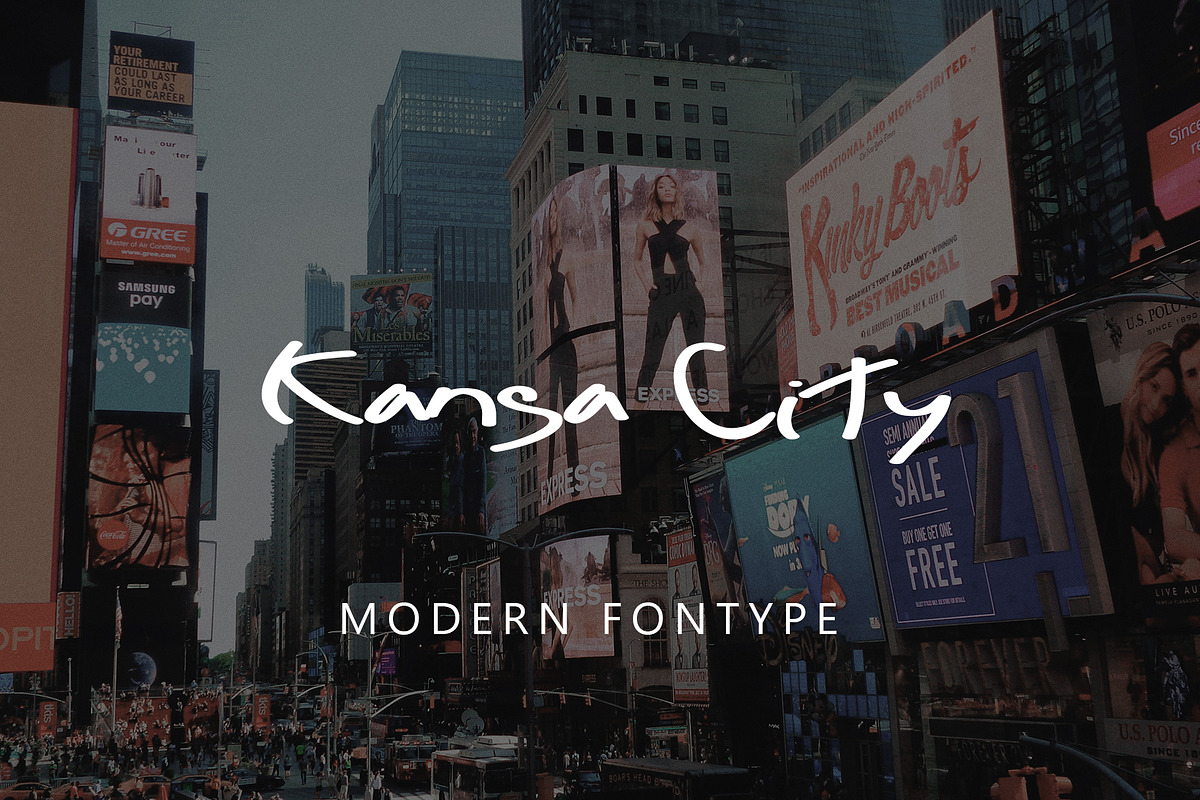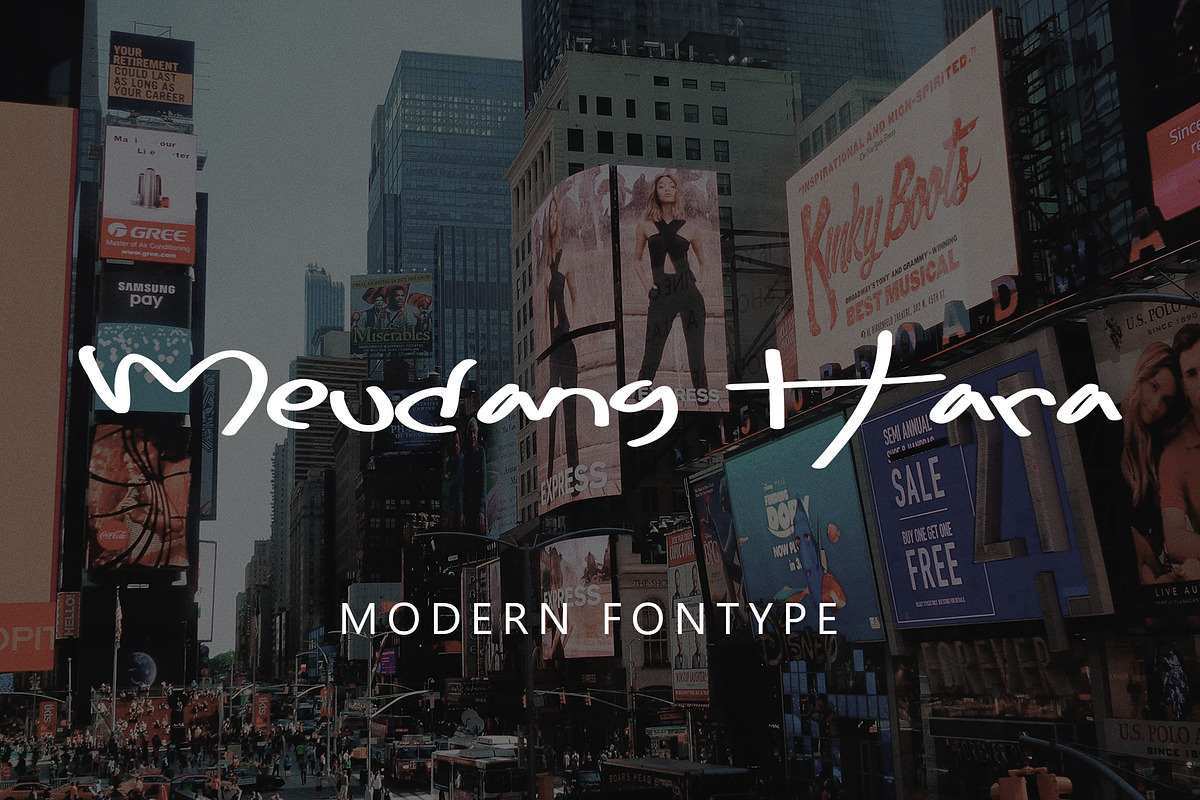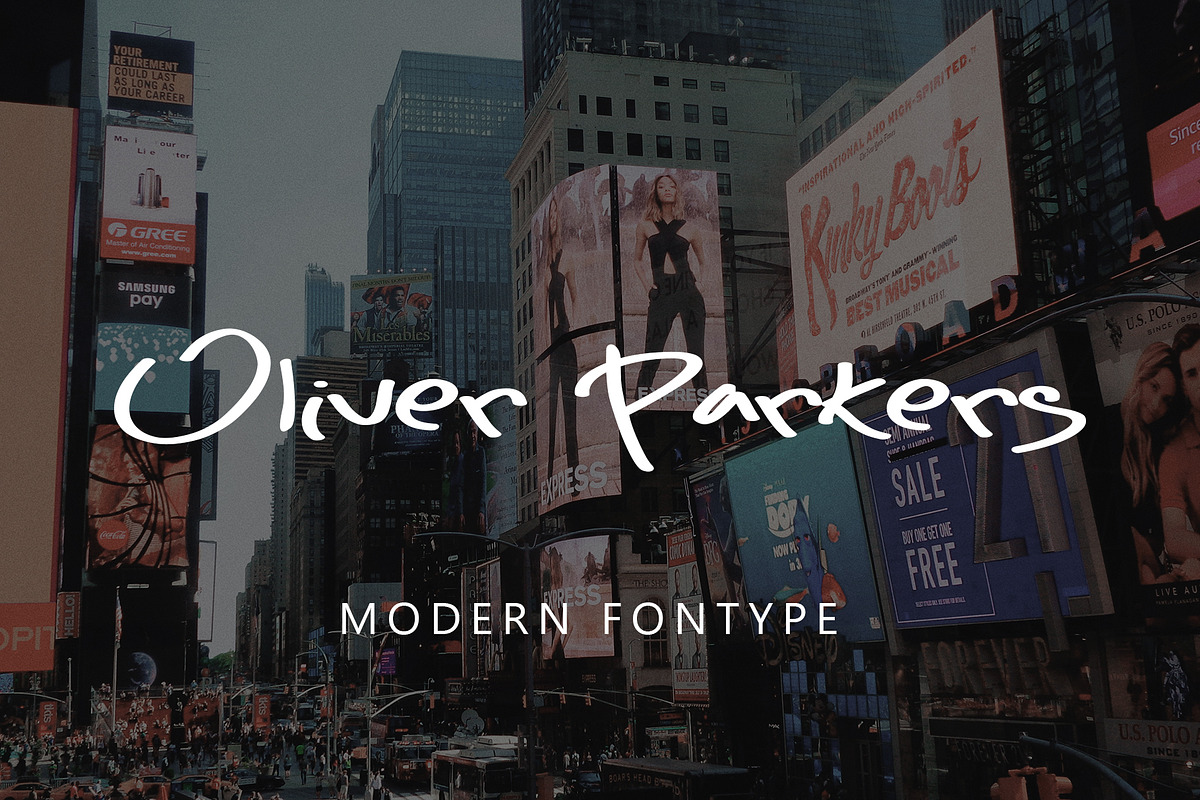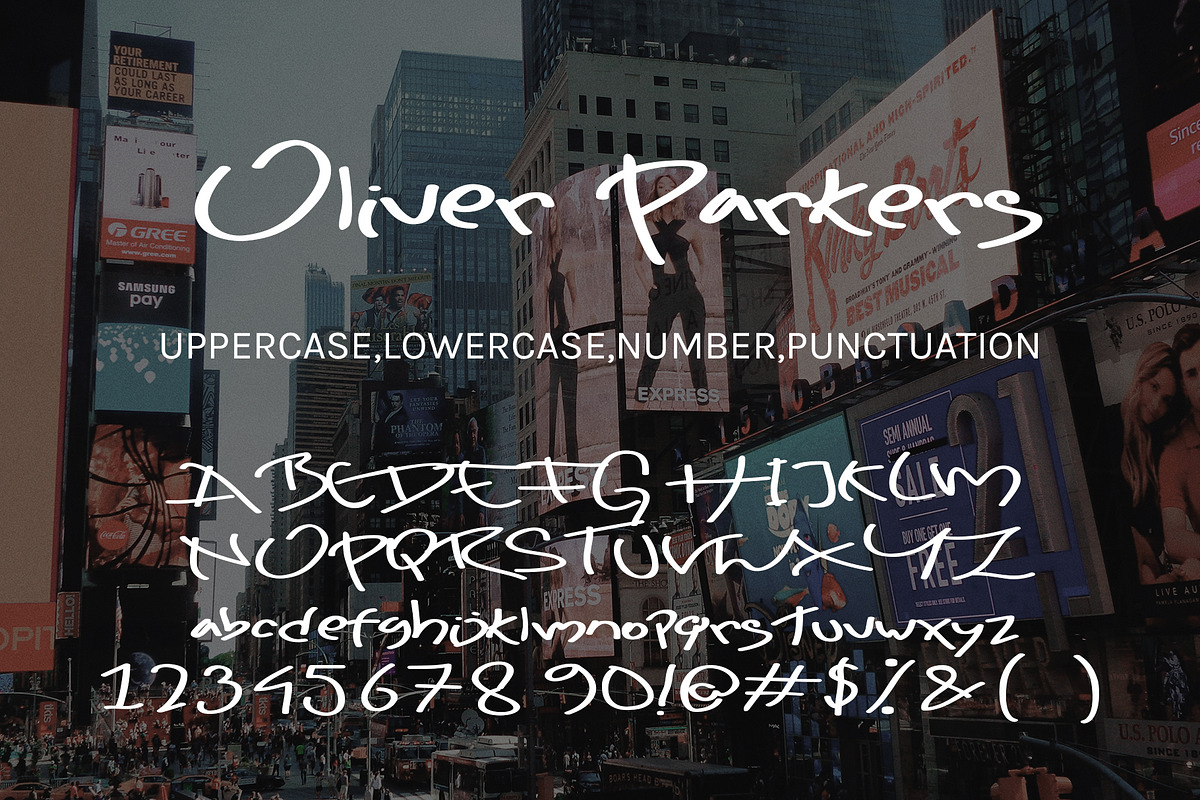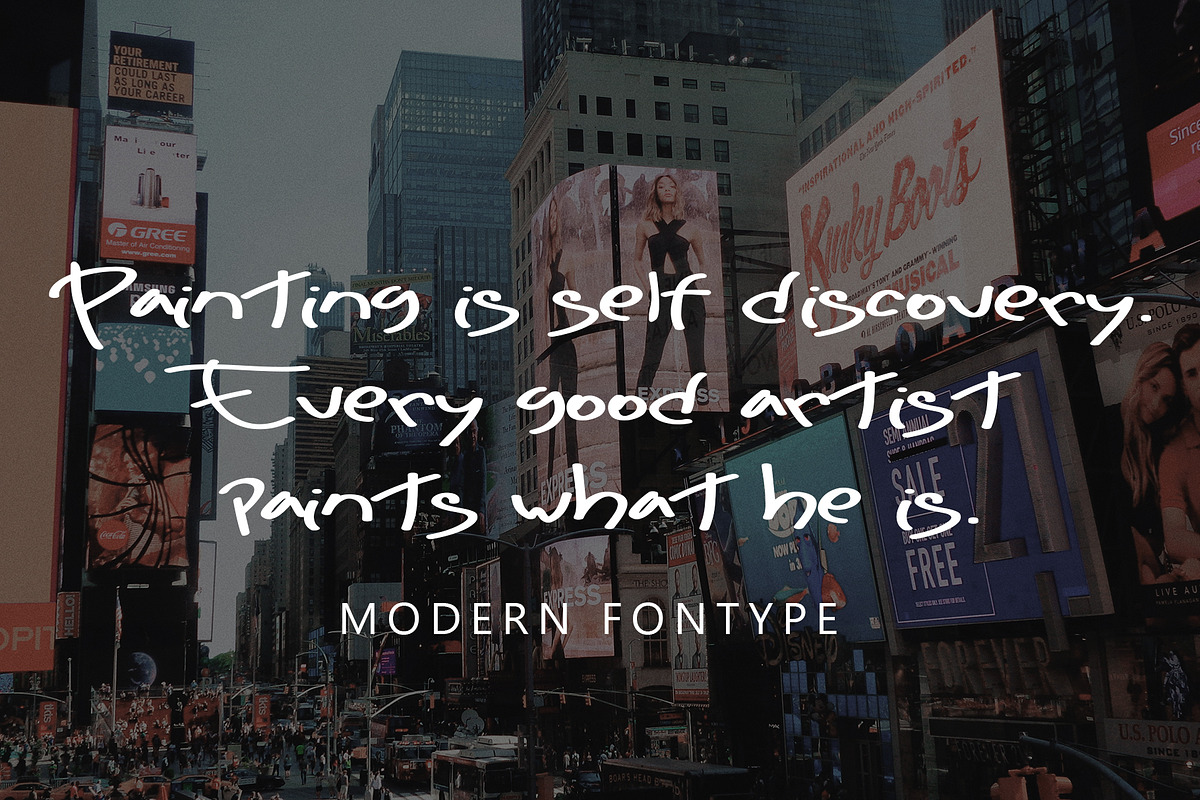
Oliver Parkers
Oliver Parkers with new style, this font will perfect for many different project ex: quotes, logo, blog header, poster, banding, letter, invitation, stationery, etc...